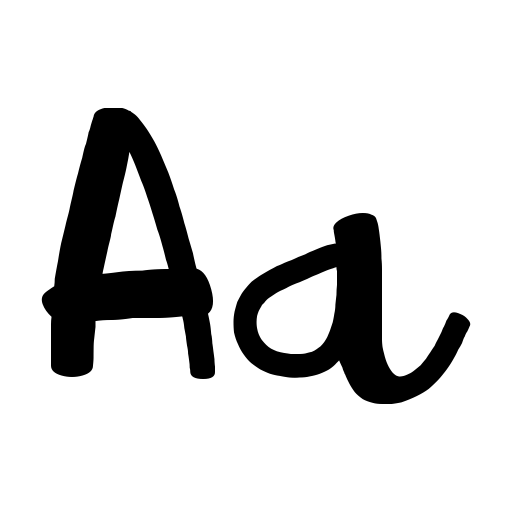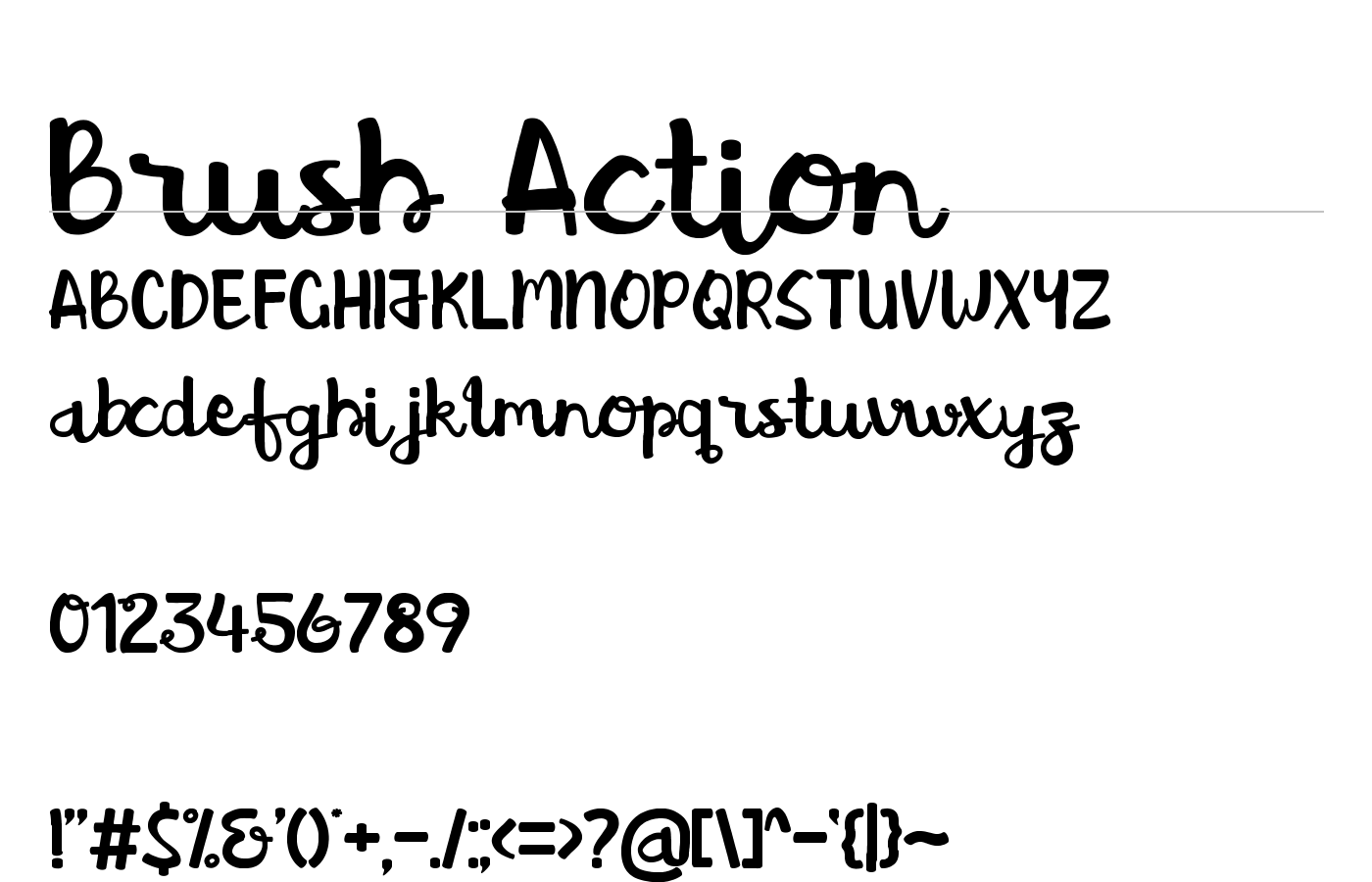
Brush Action is a playful, casual handwritten font that mimics the organic flow of brush lettering with its rounded, slightly irregular strokes and moderate contrast. It has a friendly and approachable vibe, making it ideal for creative projects, informal branding, or fun packaging where a natural, lively feel is desired. This font works well in headlines, logos, and designs that aim to communicate warmth and artistic flair.
Brush Action Font
About Brush Action Font